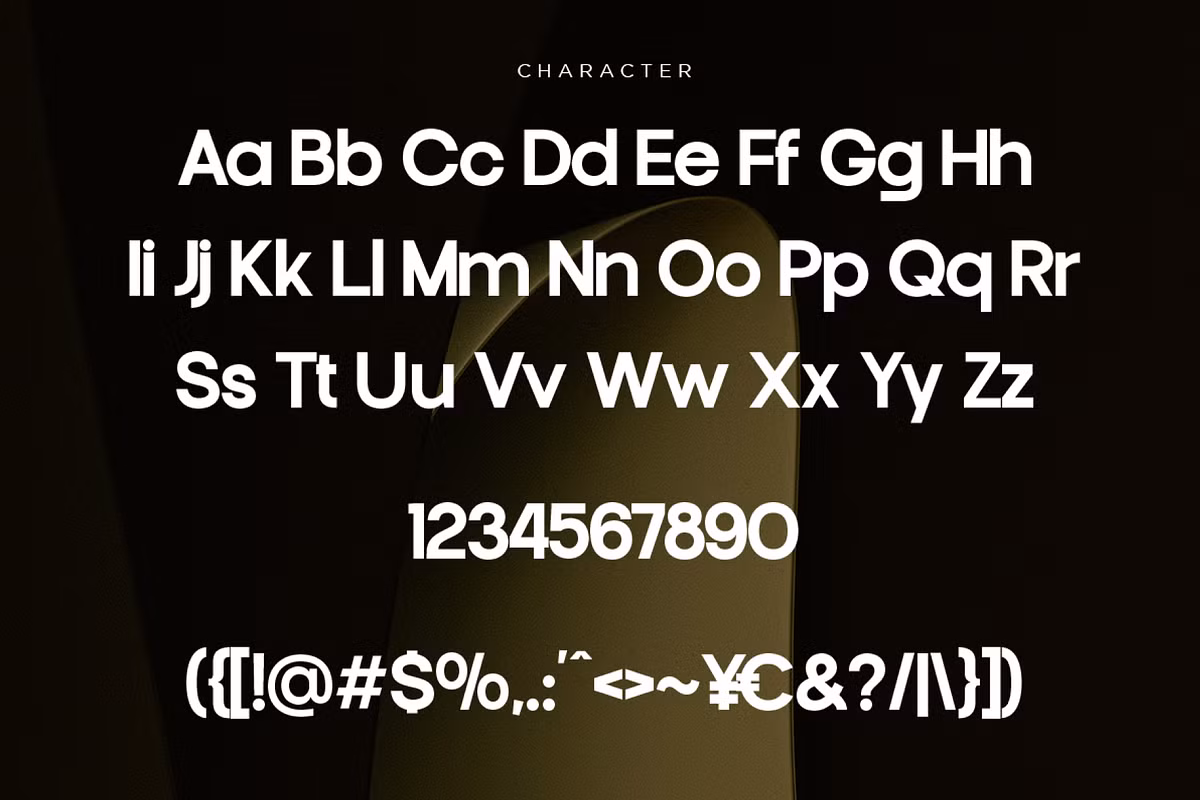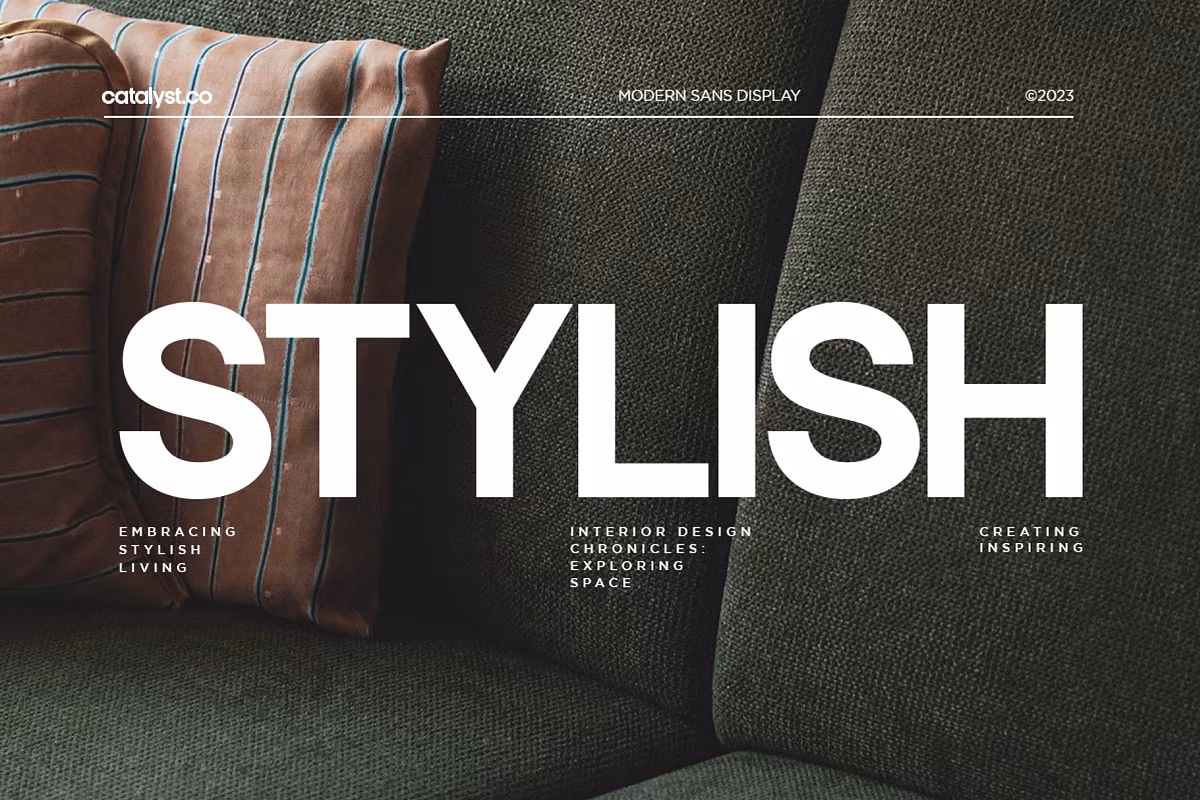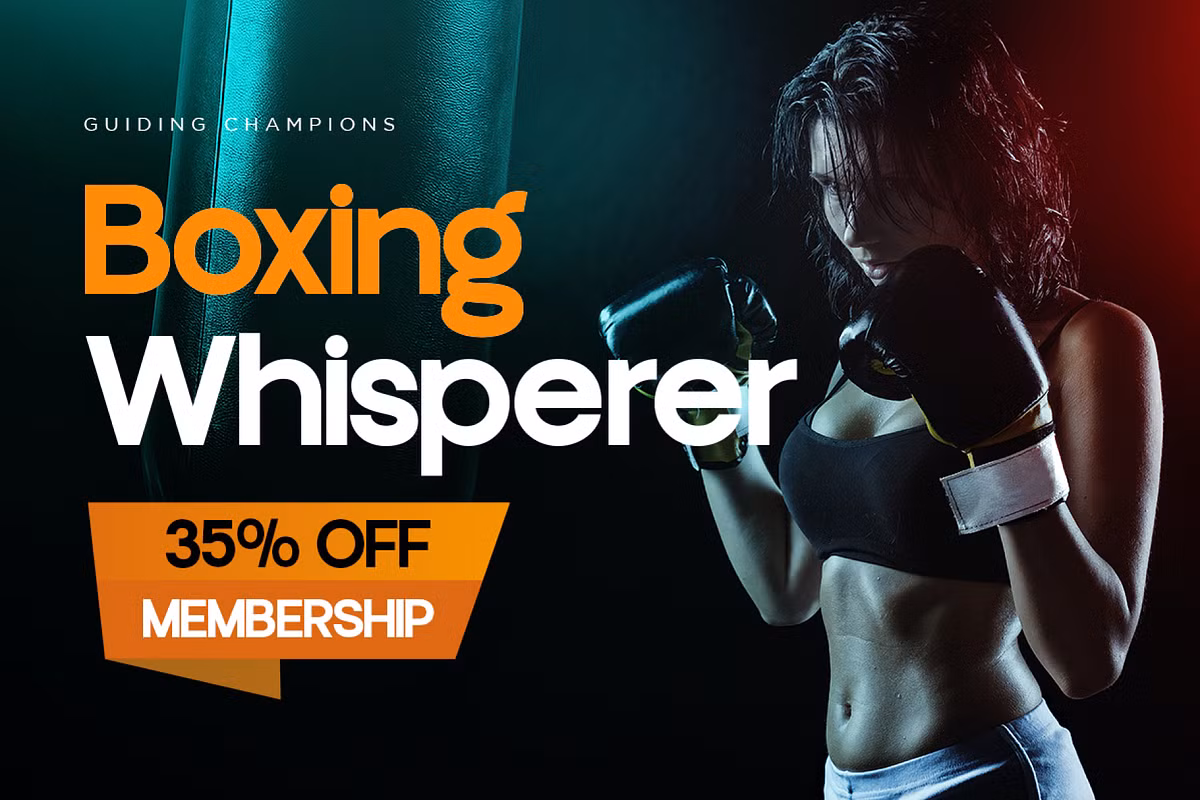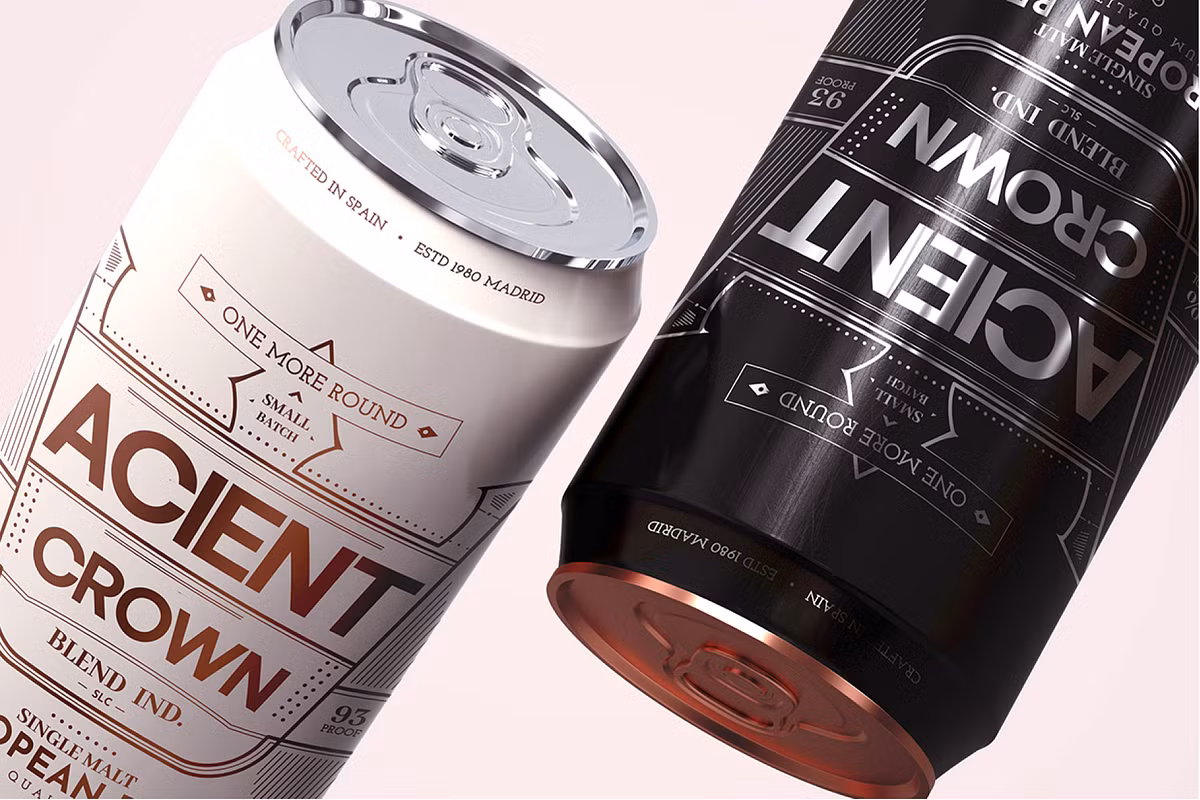
Francy Modern Sans Display Font
Francy Modern Sans Display Font: Versatile Typeface for Logos and Headers
The Francy Modern Sans Display Font is a typeface. I have used the Francy Modern Sans Display Font in projects. I find the Francy Modern Sans Display Font works well for logotypes, magazine headers and quote text. The Francy Modern Sans Display Font has lines and a modern look. When you use the Francy Modern Sans Display Font your text stands out. The message gets across clearly. Many designers and creatives use the Francy Modern Sans Display Font because the Francy Modern Sans Display Font makes text easy to read and catches the eye.
Showcasing the Francy font in logo design.
Main Features of Francy Modern Sans Display Font
The Francy Modern Sans Display Font gives features that improve the usability and appeal of the Francy Modern Sans Display Font. The Francy Modern Sans Display Font has shapes, even spacing and strong contrast. The Francy Modern Sans Display Font works well for titles, headings and short blocks of text. The Francy Modern Sans Display Font looks good on screens and, on paper. Here is a closer look, at what makes the Francy Modern Sans Display Font special:
• Uppercase & Lowercase: The Francy font includes both lowercase letters. The Francy font lets the designer use those letters for design needs.
• Ligatures: The use of ligatures makes the flow of text smoother. Ligatures also give the text a look.
• Alternate Numerals & Punctuations: The font offers numerals and punctuation marks. The font adds options, for designers who want to create typographic compositions. I find the numerals and punctuation marks useful, for my design work.
• Multilingual Support: The Francy Modern Sans Display Font supports languages. The Francy Modern Sans Display Font works well for an audience and, for international projects.
Highlighting the features of the Francy font.
Design Characteristics of Francy Modern Sans Display Font
The design of the Francy Modern Sans Display Font follows the ideas of typography. I find the Francy Modern Sans Display Font has an simple style that is defined by:
• Geometric Shapes: I see that the font uses shapes. Geometric shapes make the letters clear and easy to read. Geometric shapes keep the text readable, at sizes.
• Balanced Proportions: I see that Balanced Proportions keep the letterforms balanced. The balanced letterforms give a look. The smooth look works in the headings. Works, in the body text.
• Contemporary Aesthetic: I think the overall look of the font shows a feel. The font works well for brands that want to show an image.
I have used the Francy Modern Sans Display Font. I see that the Francy Modern Sans Display Font can be used in ways. I think the Francy Modern Sans Display Font works well for uses. Here are some examples:
• Logotypes: The font has a design. I use the font to make logos that people notice. The font helps logos stand out in a market.
• Magazine Headers: Utilize Francy for magazine titles or section headers to draw readers’ attention and enhance the visual appeal of your publication.
• Quote Text: The Francy font has lines. The clean lines of the Francy font make quotes look good. The Francy font works well for media graphics. The Francy font works well for posters.
Francy font used for magazine headers.
The Francy Modern Sans Display Font is a font that looks good and works well. The Francy Modern Sans Display Font fits design jobs. The Francy Modern Sans Display Font has a look, a full set of characters and the Francy Modern Sans Display Font works with languages. The Francy Modern Sans Display Font helps any designer who wants to improve work. I have used the Francy Modern Sans Display Font for logos, magazine headers and quotes. The Francy Modern Sans Display Font meets the type needs. Goes beyond them.